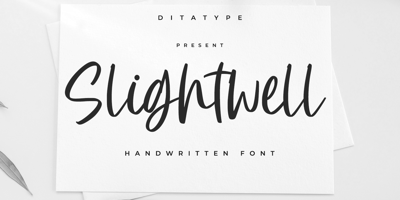
Slightwell
Slightwell font
Slightwell Font Family was designed by Donis Miftahudin and published by Ditatype. Slightwell contains 1 styles and family package options. Slightwell is a modern handwritten font. With a classy and natural handwritten style, it brings a classy and chic typeface. Slightwell is best used for weddings, branding, logotype, and quotes.Includes: – Slightwell (OTF)Features: – PUA Encoded – Multilingual Support – Numerals and Punctuation